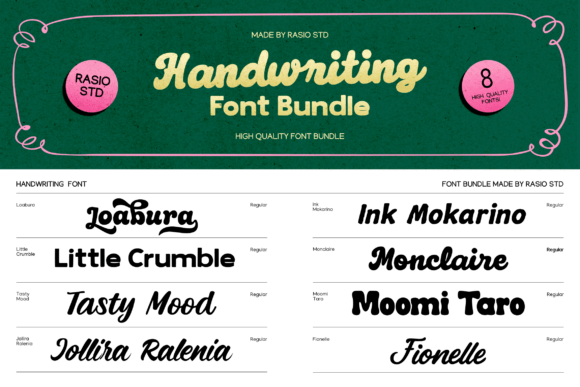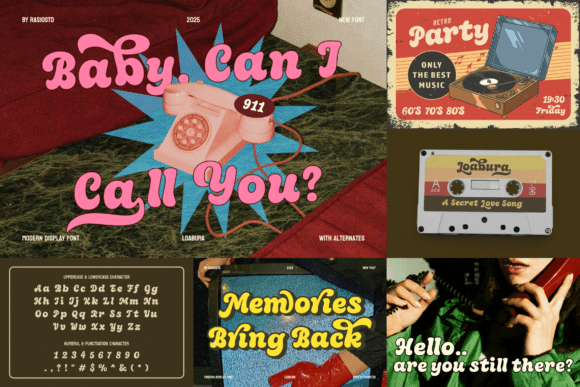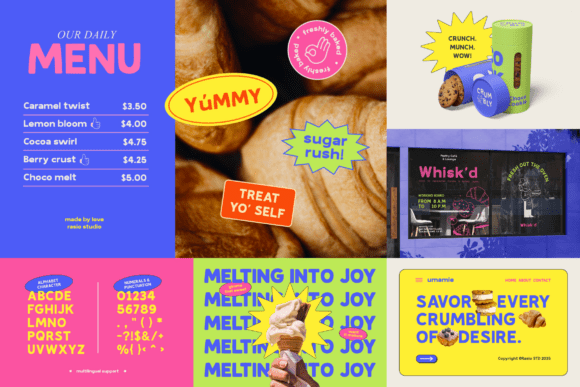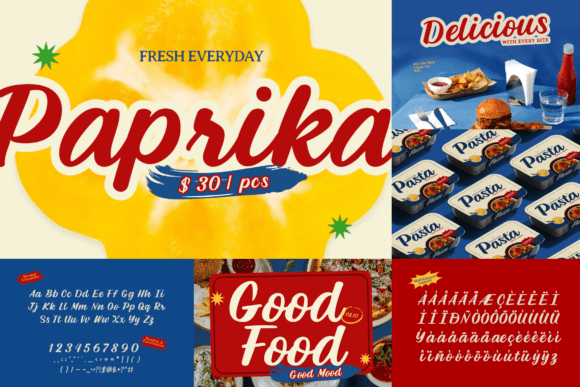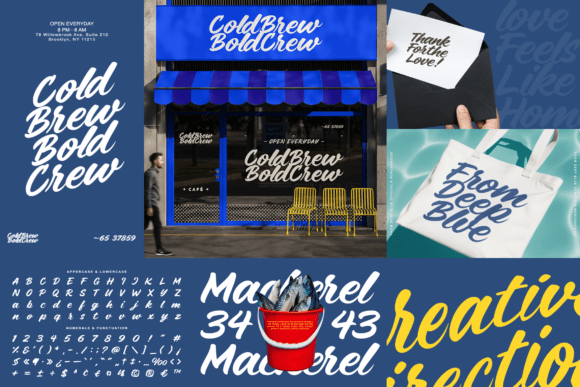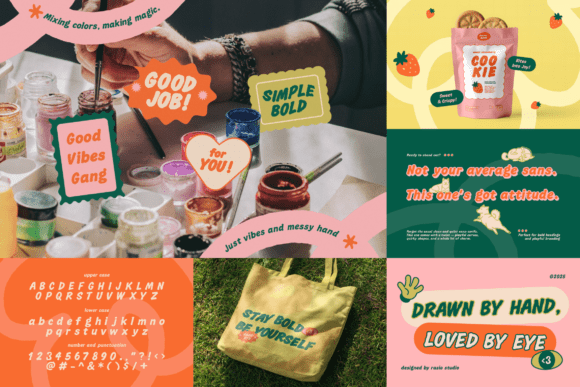
Introduction to Handwriting Bundle Font
Have you ever been stuck on a design project, scrolling through font libraries, and craving something that truly feels like a personal touch? For many creatives, the perfect font can be the missing piece that brings a design to life. That’s where the Handwriting Bundle Font comes in – a collection of warm, expressive fonts designed to add a human touch to your projects.
With its playful scripts, organic strokes, and authentic character, this bundle is perfect for designers looking to inject some personality into their work. Whether you’re working on a creative project for a food brand, children’s project, or lifestyle visuals, the Handwriting Bundle Font provides a versatile and joyful typographic foundation that’s both high quality and easy to use.
Key Features of Handwriting Bundle Font
- Unique, high-quality handwriting font styles for a creative project, ideal for designers and artists.
- Comprehensive bundle containing multiple handwriting font styles, perfect for adding a personal touch to your design.
Honest Review: Handwriting Bundle Font
- Unique and varied handwriting styles to choose from
- High-quality vector graphics that are perfect for print and digital projects
- Transparent background option for seamless integration into any design
- Easy to use and customize with most design software
The Handwriting Bundle Font is perfect for designers who need a touch of personality in their work. With a wide range of styles to choose from, I was able to find the perfect fit for my project.
- Limited customization options for some of the more complex styles
- Some of the fonts may not be suitable for small text sizes
Overall, I’m impressed with the Handwriting Bundle Font. It’s a valuable resource for any designer looking to add a personal touch to their work.
Wedding invitations, greeting cards, social media graphics, and advertisements.